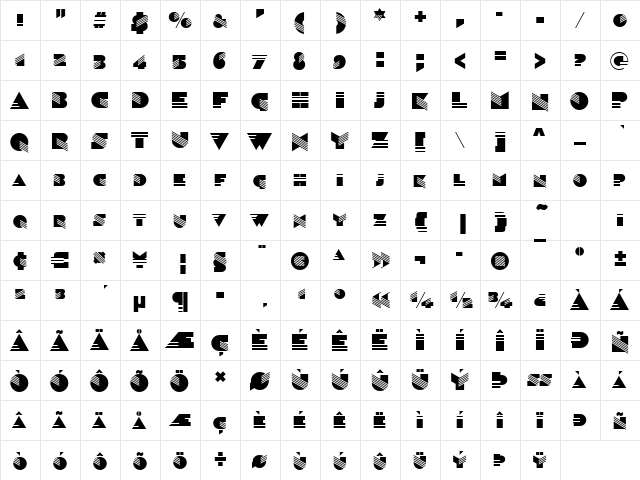
SinaloaSCD Regular Font Preview
SinaloaSCD Regular
Design Context for SinaloaSCD Typeface
SinaloaSCD is a composed and adaptable typeface that performs quietly and consistently across a wide range of design contexts.